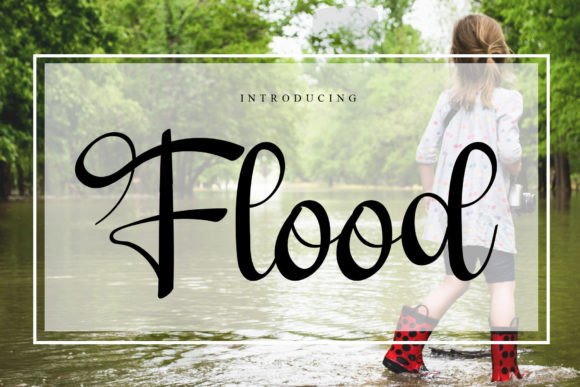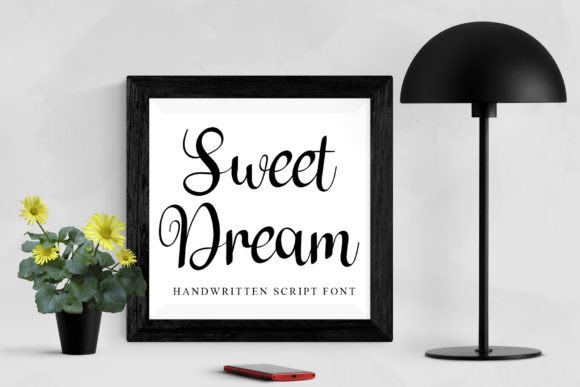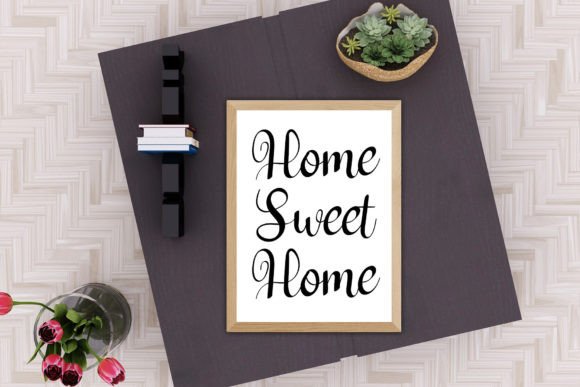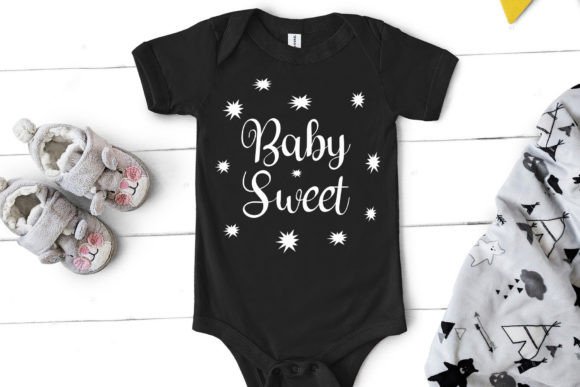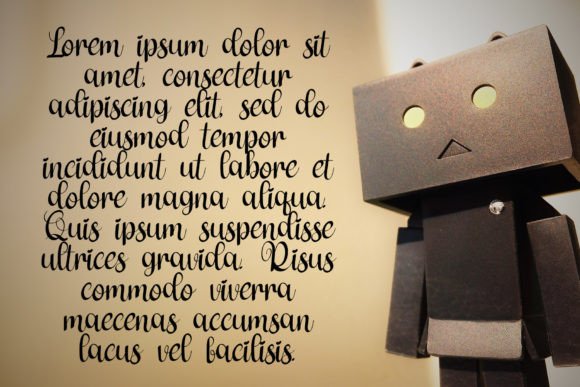
Flood Font
About Flood Font
**Flood** is not just a font; it’s a beautiful handwritten expression crafted for elegance and versatility. This font is the perfect choice for a variety of designs, including wedding invitations, greeting cards, billboards, logos, business cards, and any project that requires a touch of handwritten charm.
The beauty of **Flood** lies in its carefully crafted design, featuring a varied baseline that adds a dynamic and artistic touch to your text. This variation in the baseline ensures that your creations are not only spectacular but also carry a natural and authentic feel. It’s like a brushstroke on paper, carefully translated into a font to make your ideas look more real.
Whether you’re designing materials for a wedding, creating eye-catching billboards, or establishing a unique brand identity with a logo, **Flood** is the font that elevates your text with a handwritten touch. Its versatility allows it to seamlessly adapt to various design contexts, ensuring that your projects stand out with elegance and sophistication.
The meticulous craftsmanship of **Flood** ensures that every character is designed with care, creating a font that is both visually pleasing and authentic. Let this font be the brushstroke that brings a touch of artistry to your designs.
In summary, **Flood** is the beautiful handwritten font designed for elegance and versatility. With a varied baseline and carefully crafted design, it’s perfect for wedding invitations, greeting cards, billboards, logos, business cards, and more. Let your ideas come to life with a font that adds a touch of handwritten charm and authenticity to your creations.